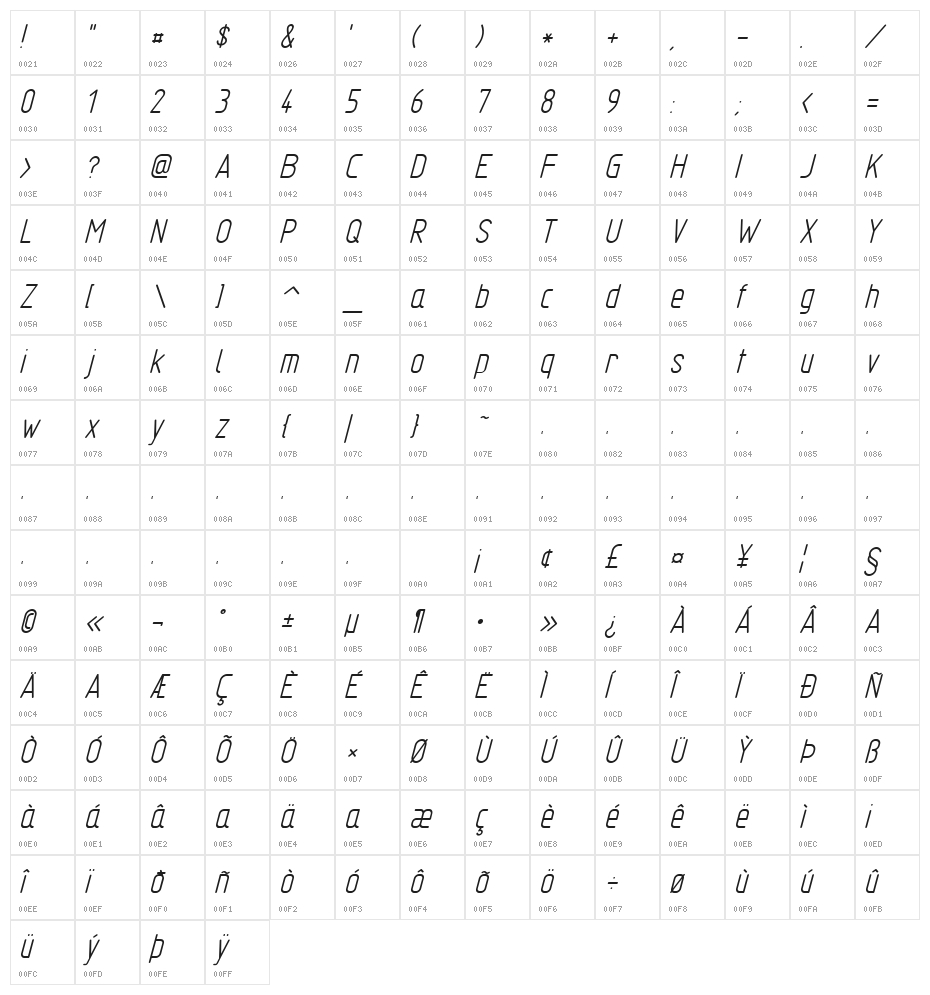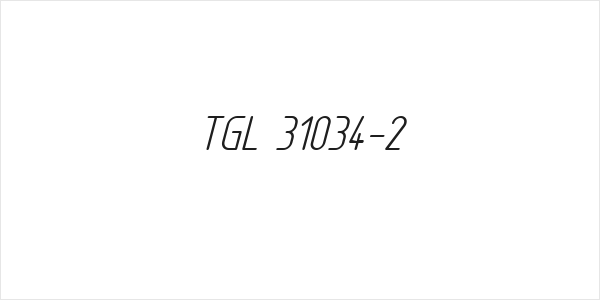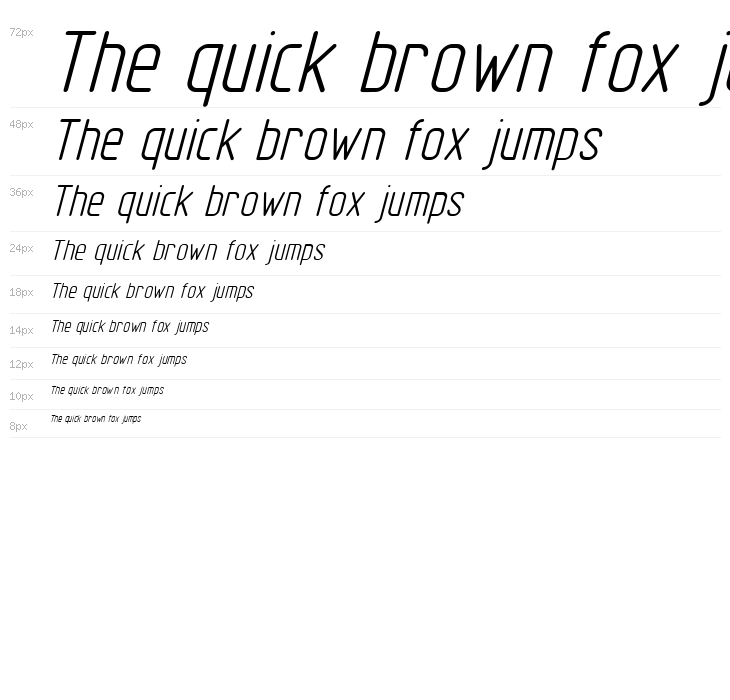
TGL 31034-2 Font
TGL 31034-2 Description
This font features a sleek, modern design with a slight slant, giving it an italicized appearance. The characters are elongated and narrow, contributing to a condensed look. The strokes are consistent in thickness, providing a uniform appearance across all characters. The font maintains a clean and minimalist aesthetic, making it suitable for contemporary design projects. Its geometric structure and smooth curves enhance readability while adding a touch of elegance. The special characters and numbers are designed to match the overall style, ensuring cohesion throughout.